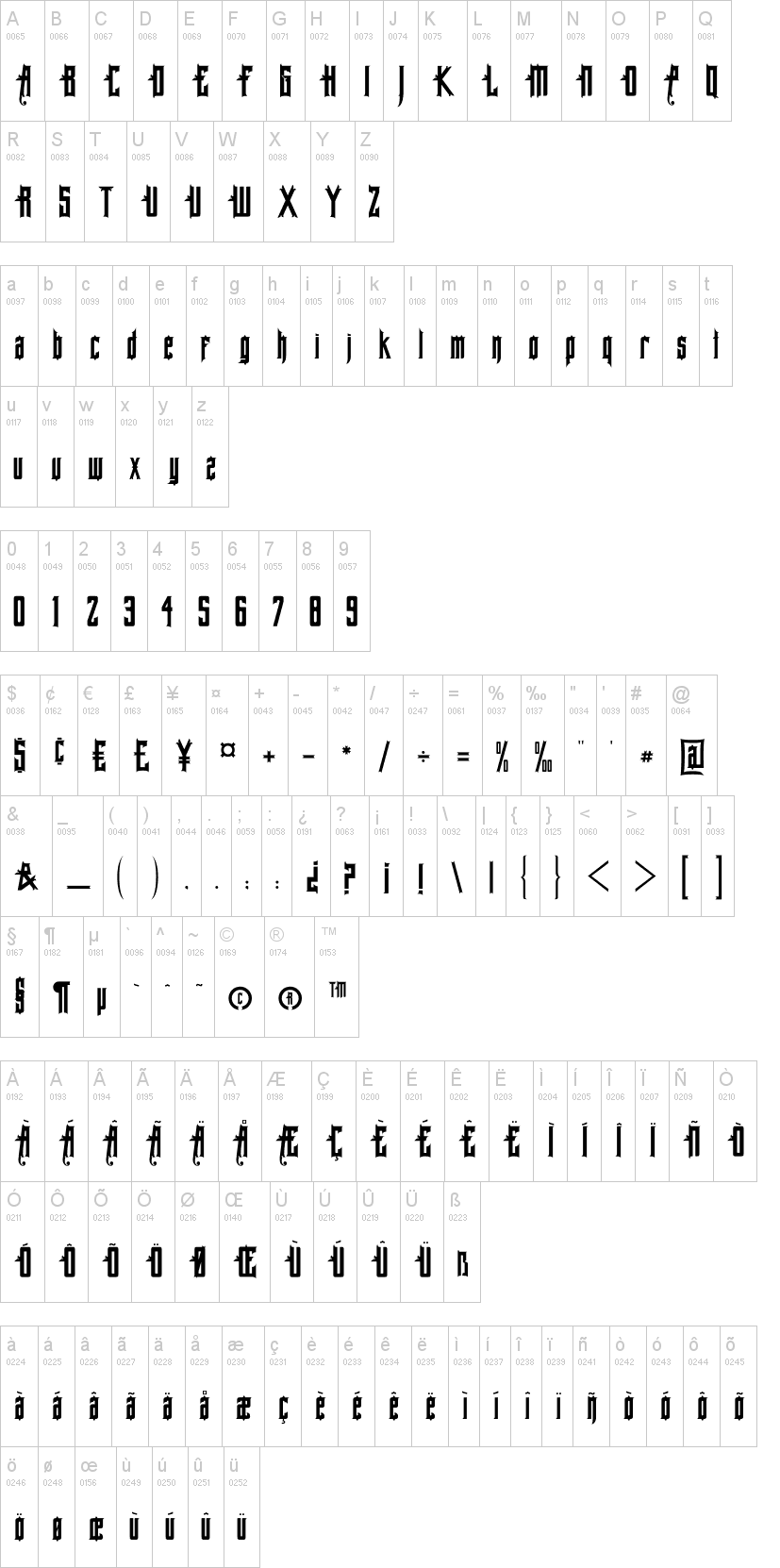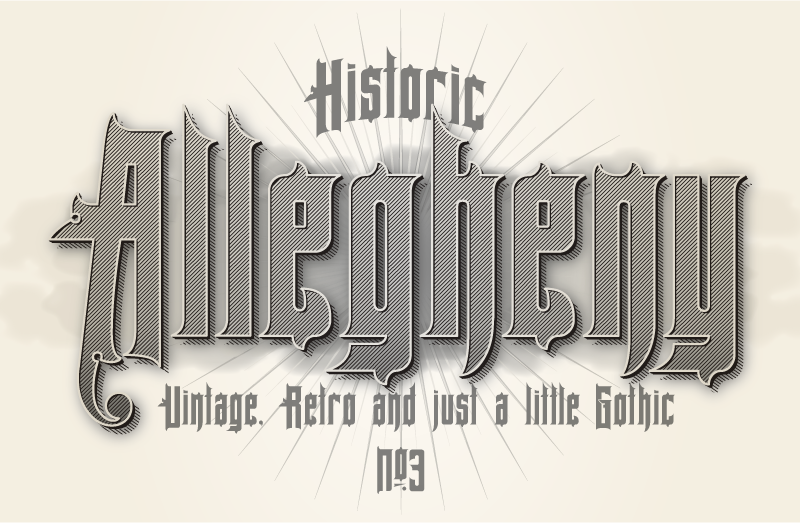
Note of the authorThe third in a series of Sanborn map inspired fonts, this time based on the glyphs from a 1906 insurance map for Allegheny, Pennsylvania. As with Galveston & Spartanburg, the font has limited language support, with a view to expanding this at a later date and is served 100% free and as is.
(Make sure you keep the Caps lock off. Allegheny is designed to use upper and lowercase glyphs and is quite unpleasant in all caps due to the decorations)